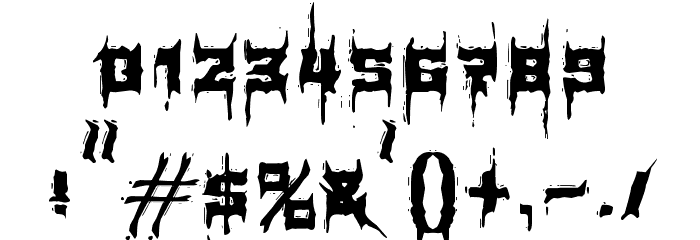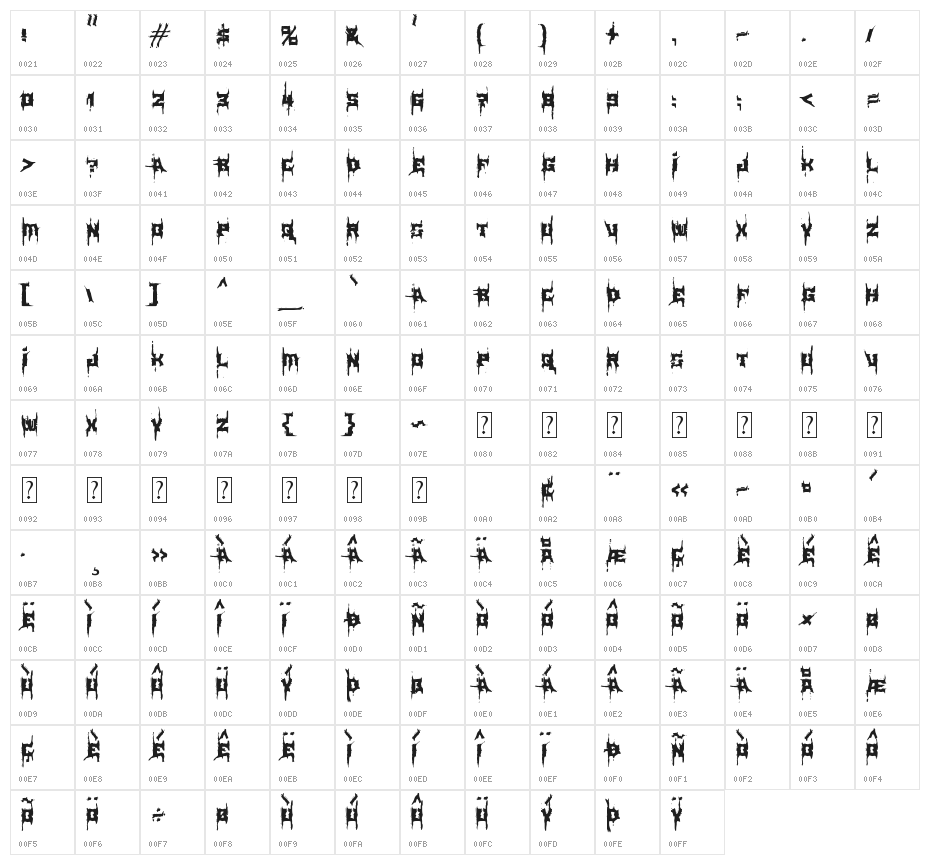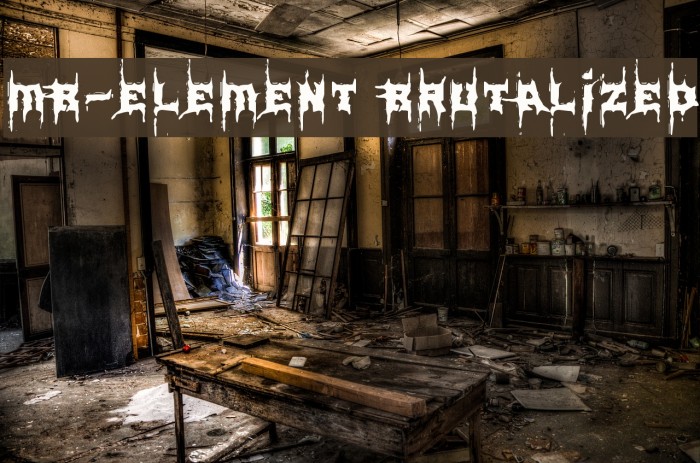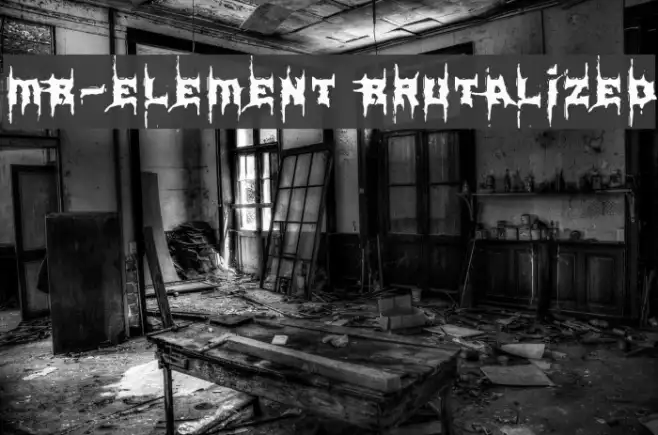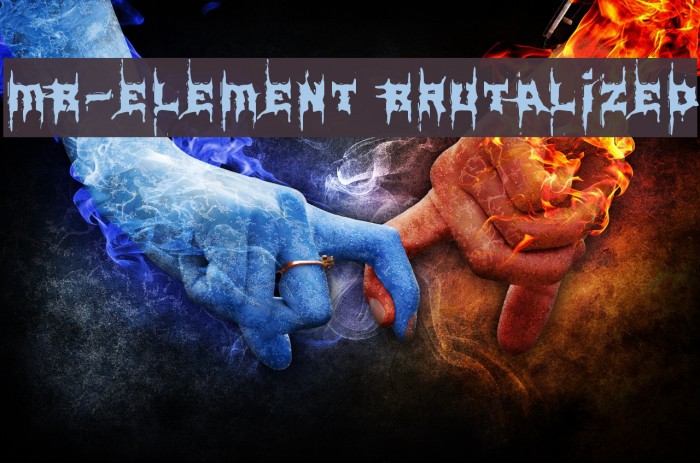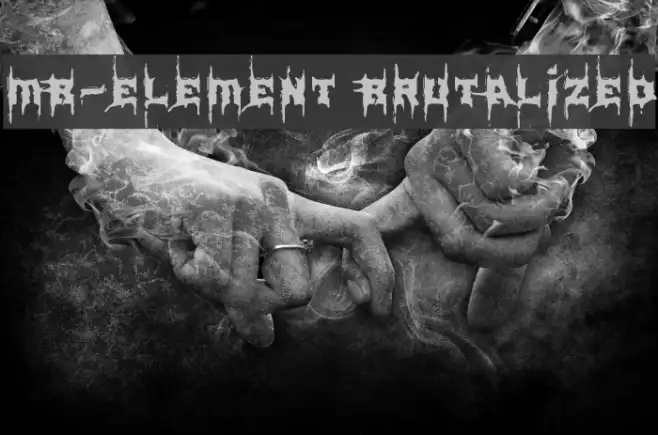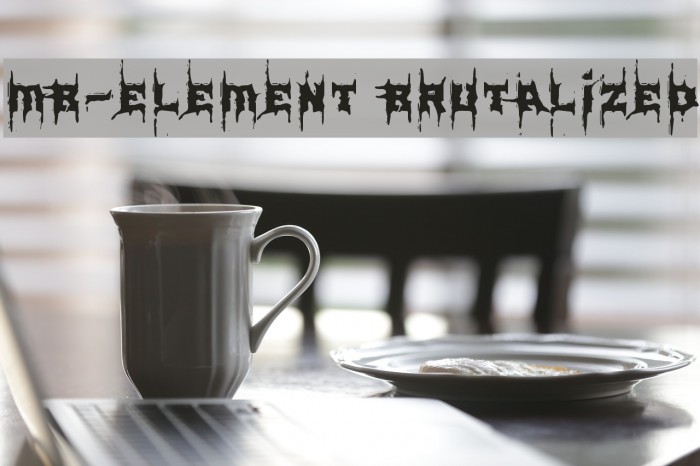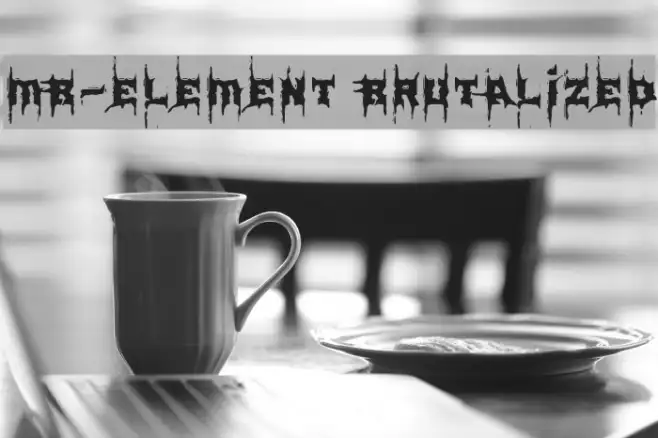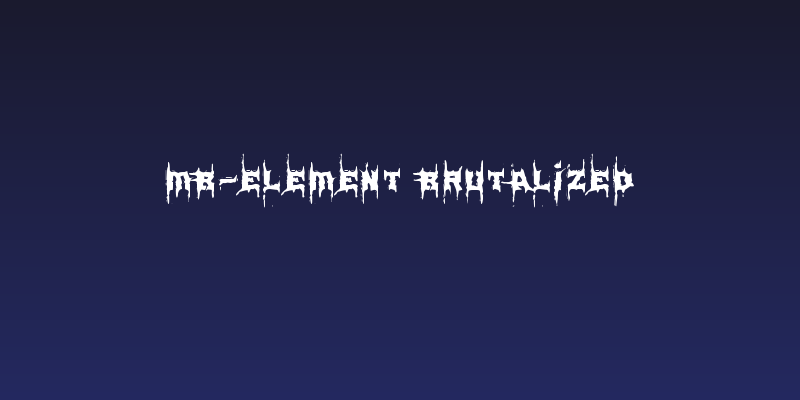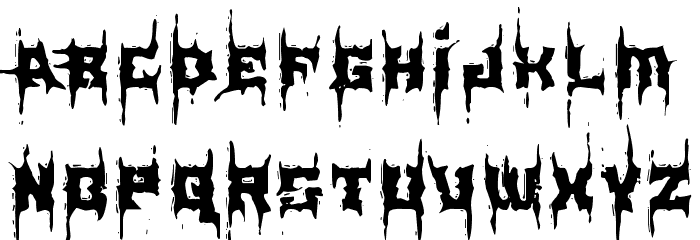
MB-Element Brutalized Font
MB-Element Brutalized Description
This font features a highly decorative and aggressive style, characterized by sharp, jagged edges and a distressed appearance. The letters are bold and impactful, with a grunge-like texture that suggests a sense of chaos and intensity. Each character appears to be dripping or melting, adding to the brutal and raw aesthetic. The uppercase and lowercase letters maintain a consistent design, while the numbers and special characters follow the same rugged theme. This font is ideal for projects that require a strong, rebellious, or edgy look.
Proposed ProjectsAlbum covers, horror movie posters, extreme sports branding, or any project needing a rebellious edge.